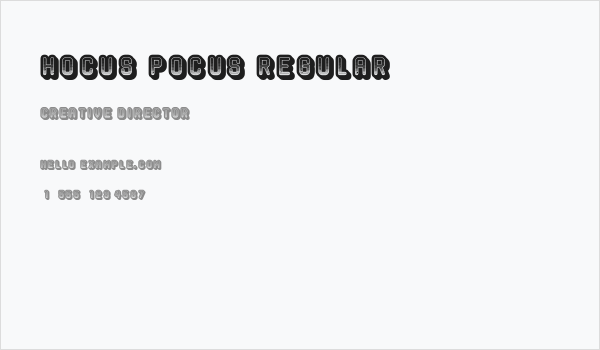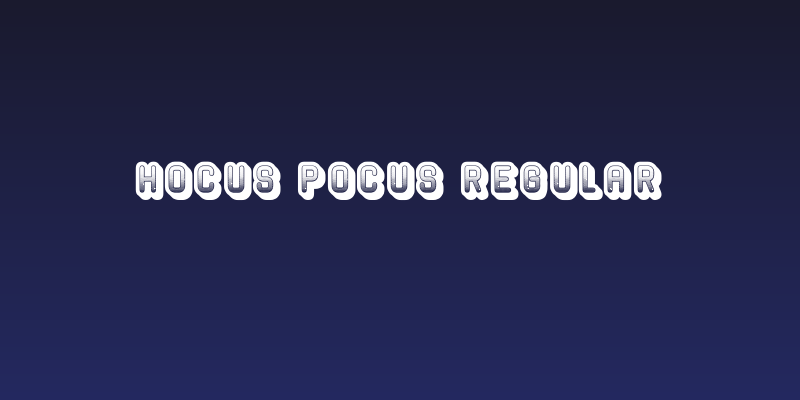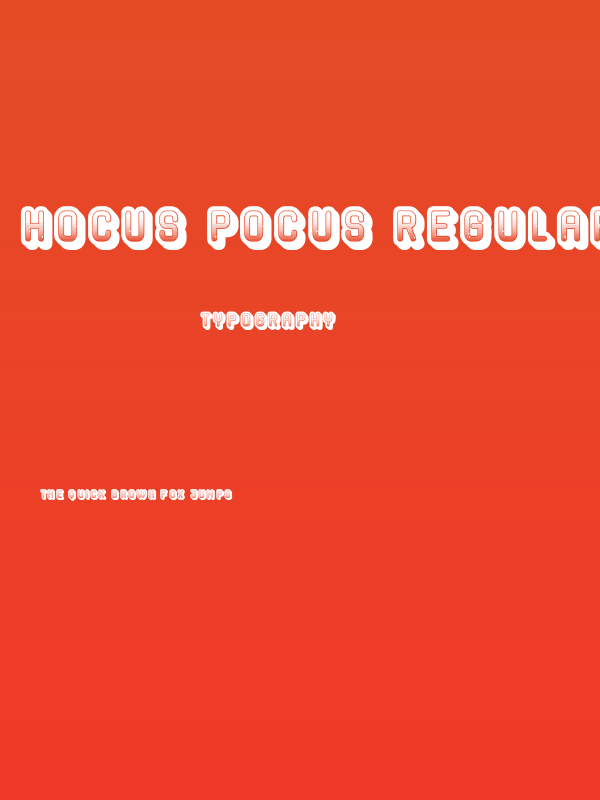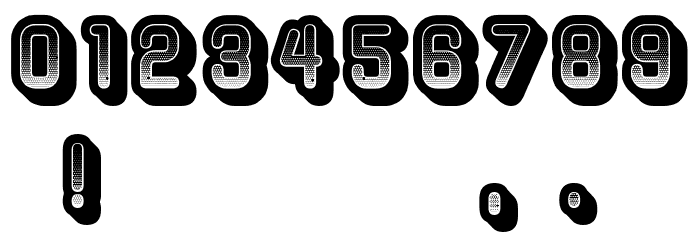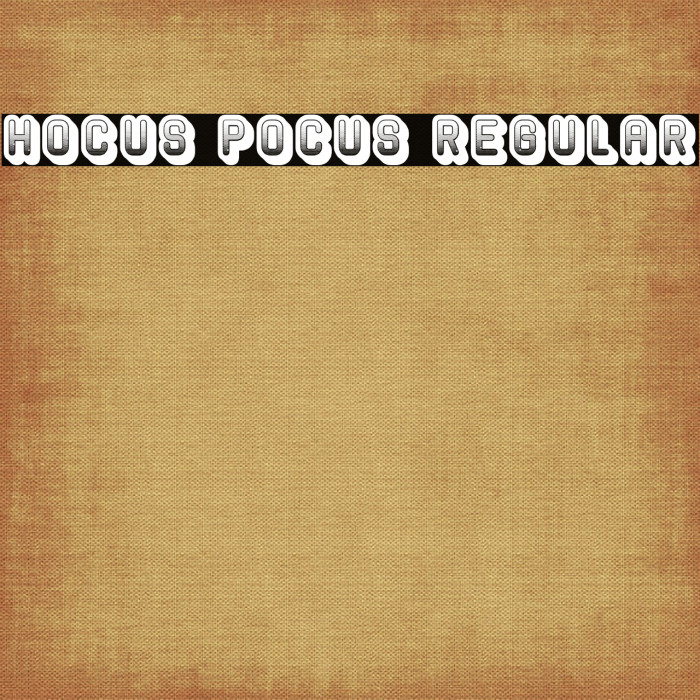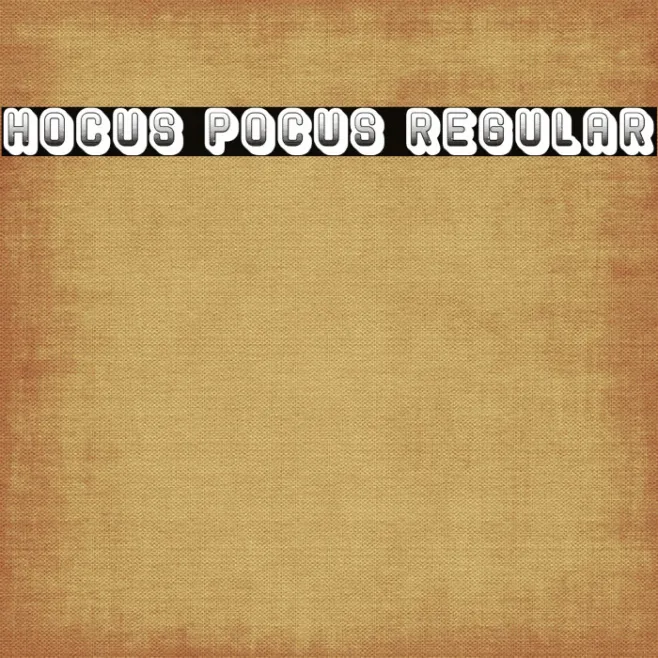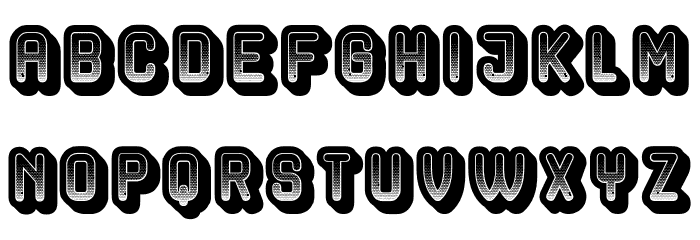
Hocus Pocus Regular Font
Hocus Pocus Regular Description
This font features a bold, playful design with a distinct shadow effect that gives it a three-dimensional appearance. The letters are uppercase and lowercase, with a consistent thickness throughout, creating a uniform look. The inner part of each character is filled with a dotted pattern, adding a unique texture that enhances its decorative style. The numbers and special characters follow the same design principles, ensuring a cohesive visual identity. This font's whimsical and eye-catching style makes it ideal for projects that require a fun and engaging aesthetic.